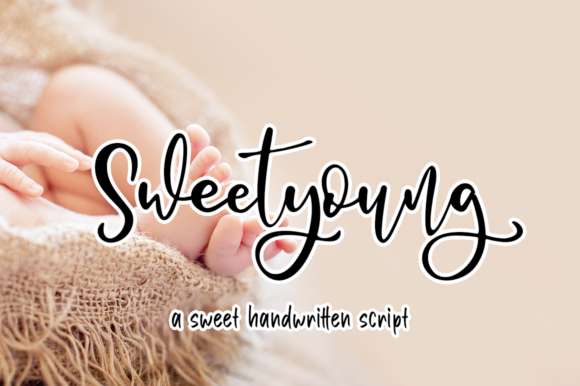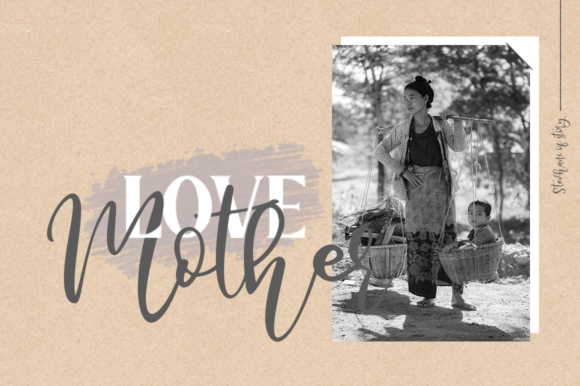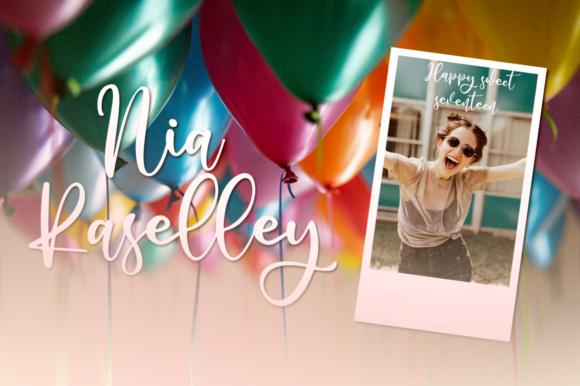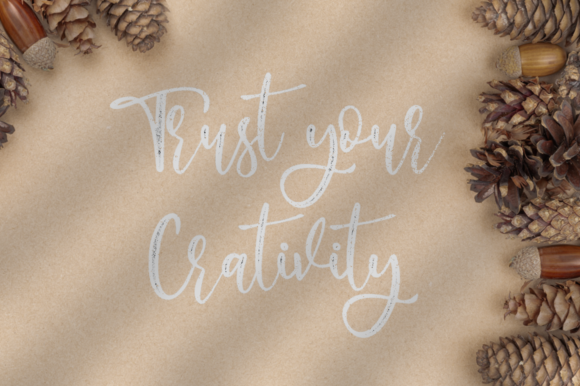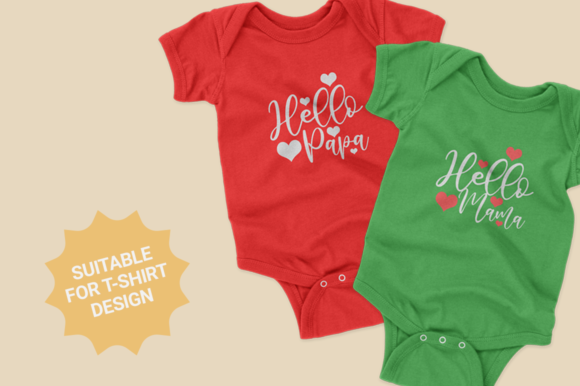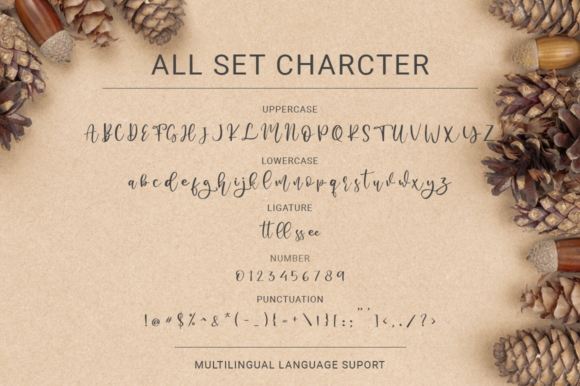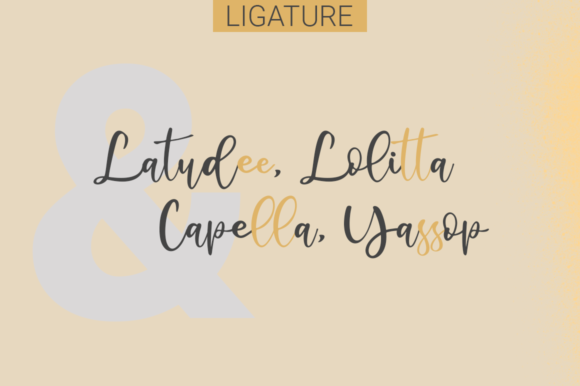
Sweetyoung Font
About Sweetyoung Font
Sweetyoung is a flowing and casual handwritten font. It has beautiful swashes and it will look outstanding in any context, whether it’s being used on busy backgrounds or as a standalone headline!